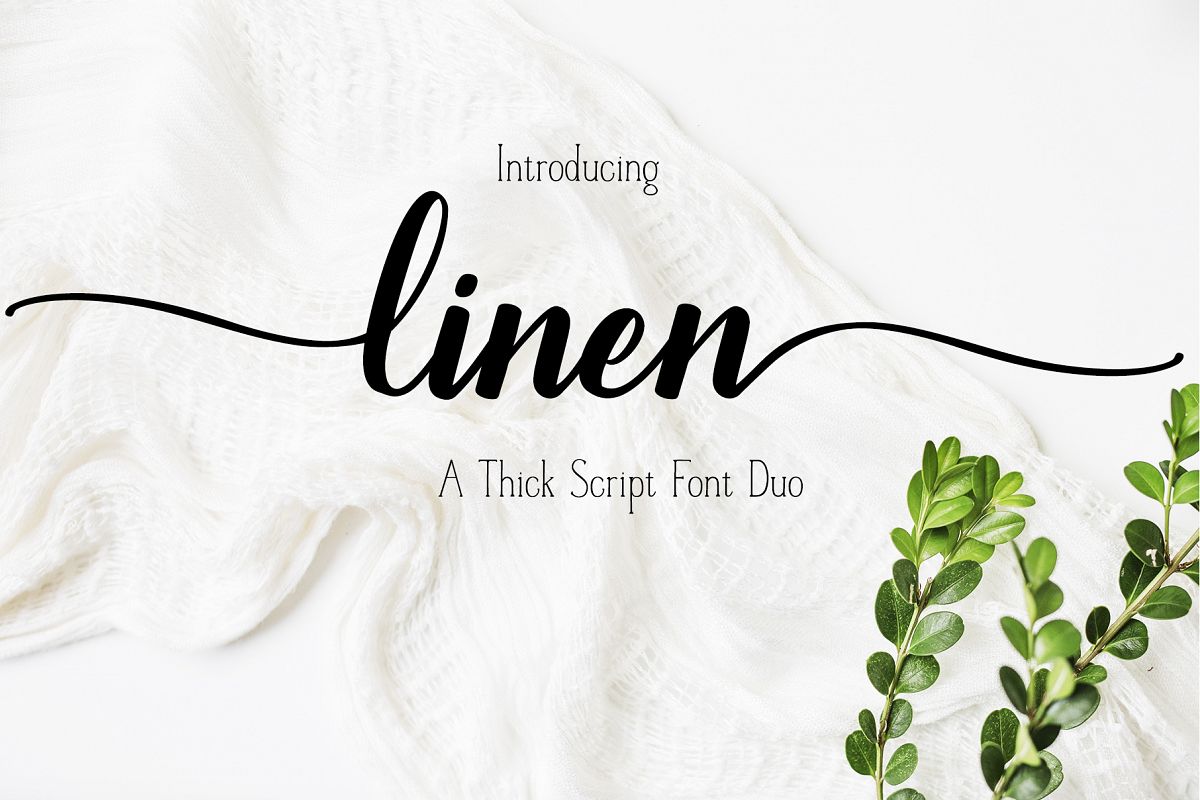
A Font Duo - LINEN - Thick Script paired with a serif
This thick hand-made script font was created to be seen from far away. I needed an elegant font that would look good on wedding signs, home decor, totes, products and more. I use this font more than any other fonts when I'm making signs. Its' so easy to use with a cutting machine.